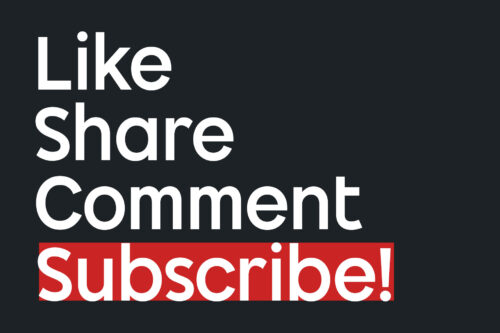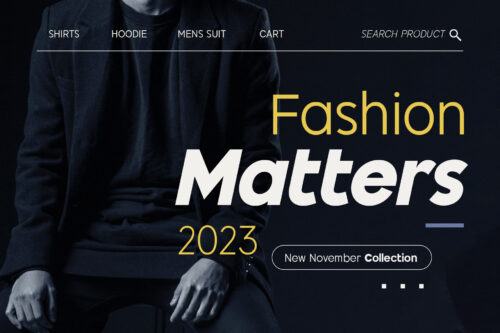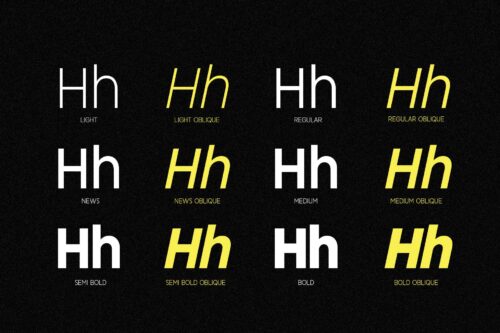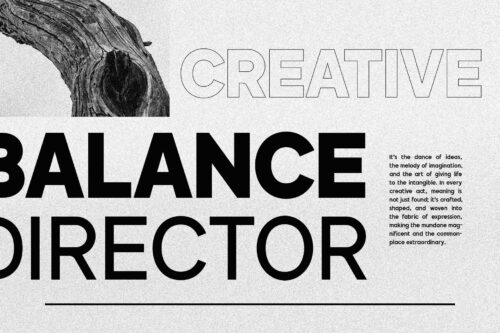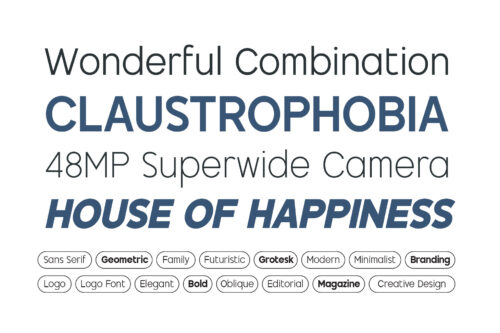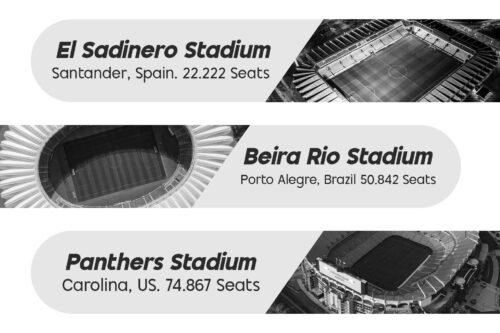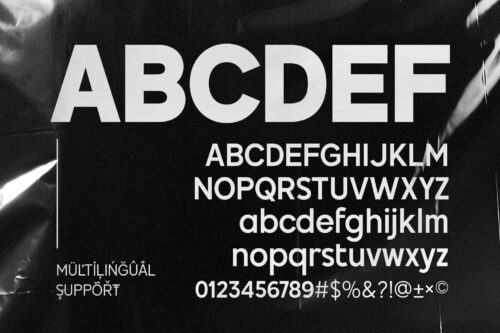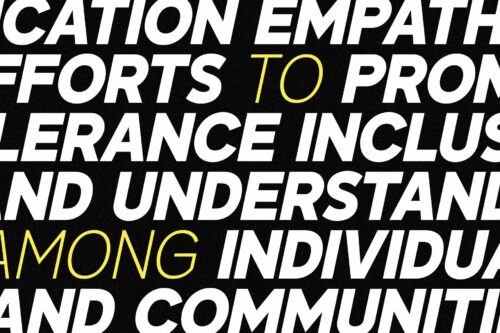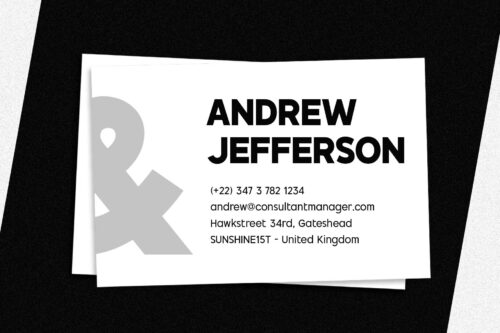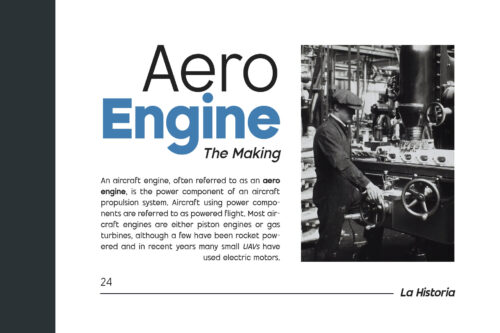
Salmond Light
Salmond Regular
Salmond News
Salmond Medium
Salmond Semibold
Salmond Bold
Salmond Light - Oblique
Salmond - Oblique
Salmond News - Oblique
Salmond Medium - Oblique
Salmond Semibold - Oblique
Salmond Bold - Oblique
Meet Salmond, a geometric and modern sans serif font designed with a tight letterspace, exuding a unique, minimalist charm. Consists with six weights, ranging from Light, Regular, News, Medium, Semibold, and Bold, matching with Oblique styles and multilingual support.
This font family offers versatility for various design needs, designed especially for display such as titles, branding, logos, books, UI/UX, and impactful editorial work.
Salmond – Font Family